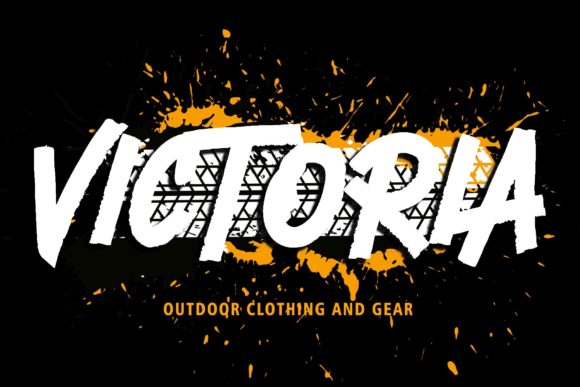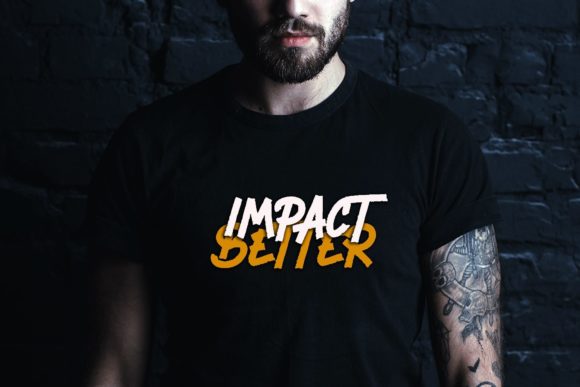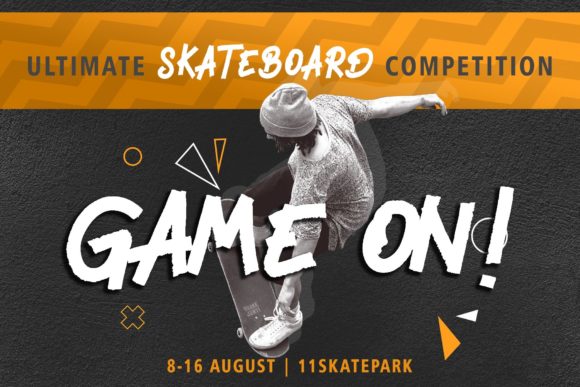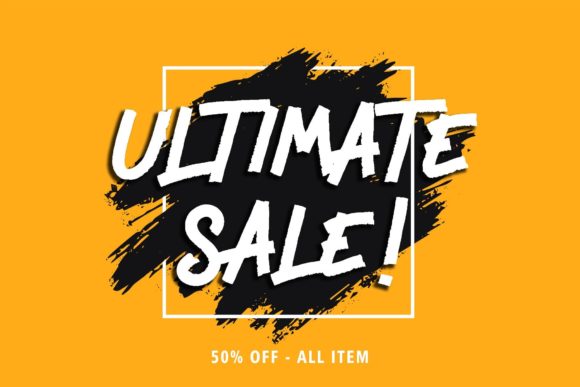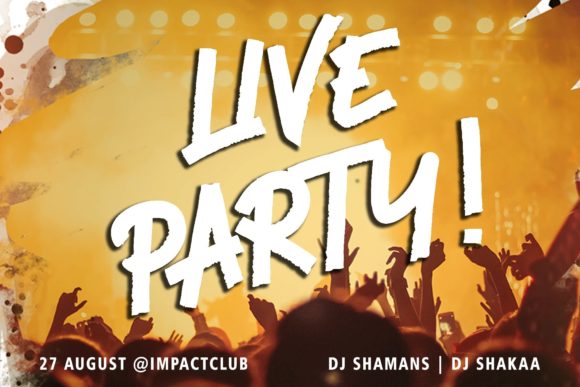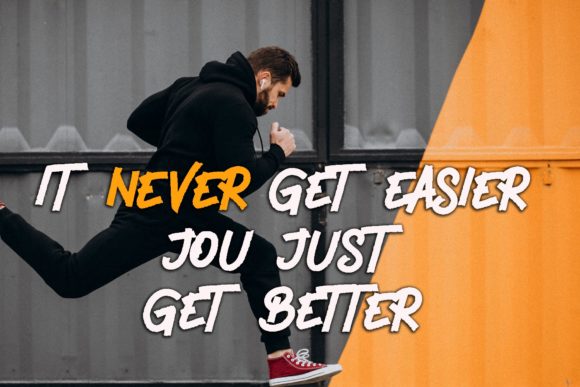
Introduction to Heavier Font
Heavier is a cool, bold and brushed display font.
No matter the topic, this font will be an incredibly asset to your fontsโ library, as it has the potential to elevate any creation .
Heavier Font offers exceptional quality and versatility, making it a valuable addition to your design toolkit. Whether you’re creating for personal projects or commercial use, Heavier Font delivers professional results.